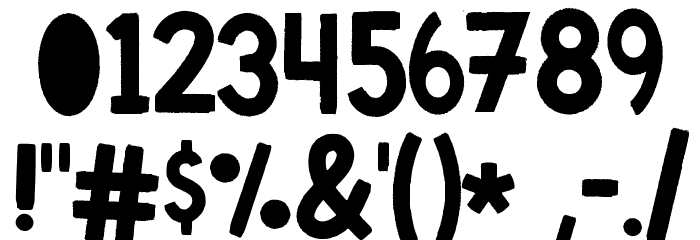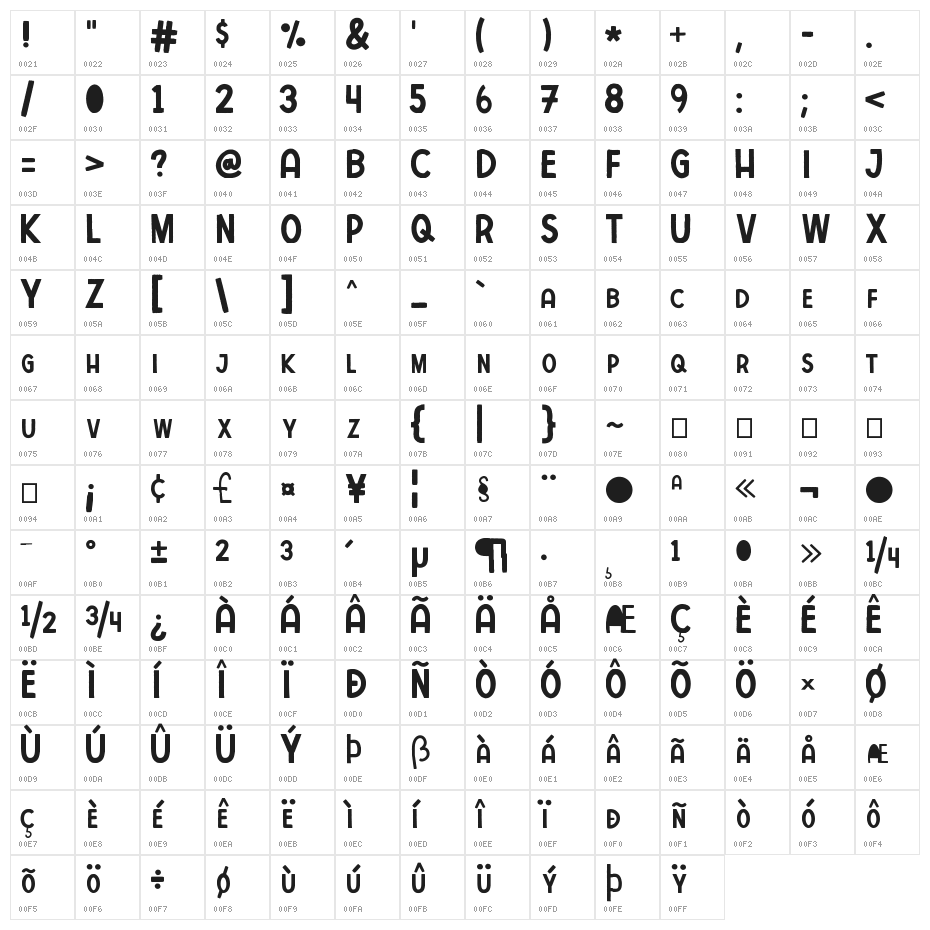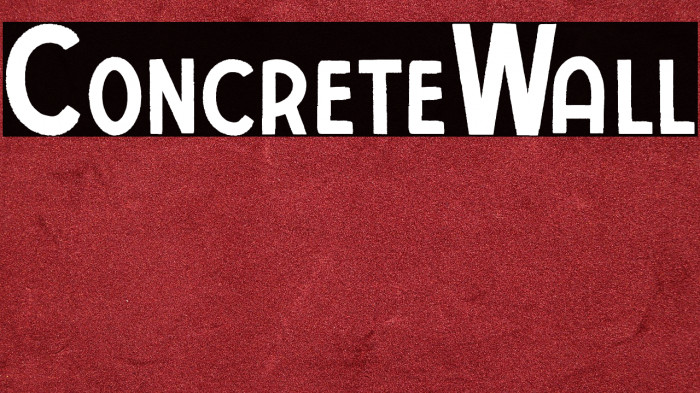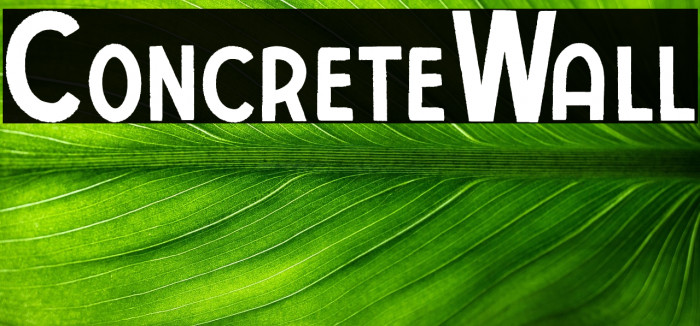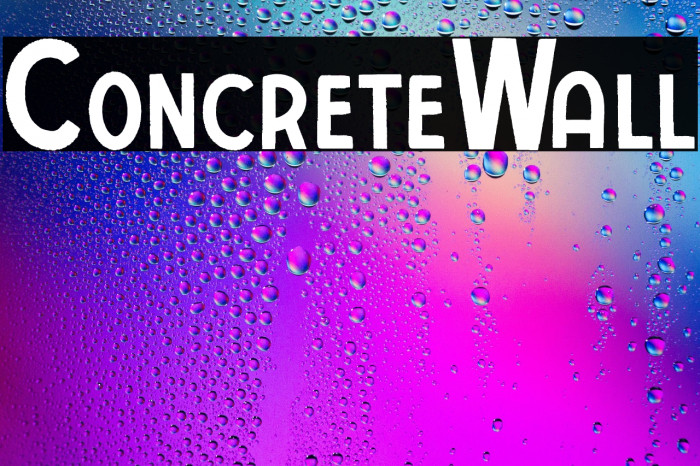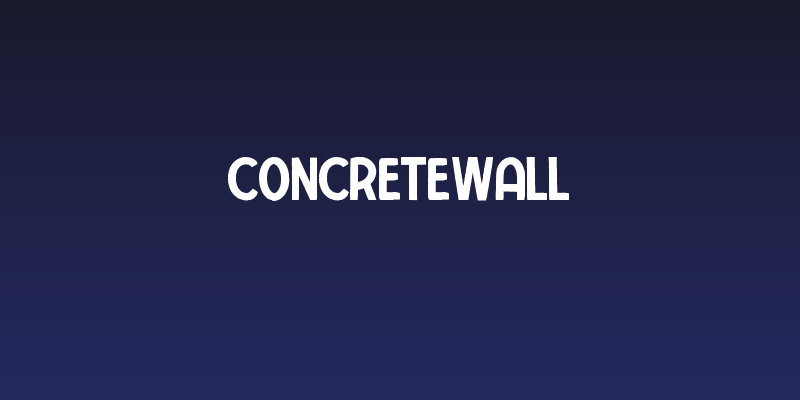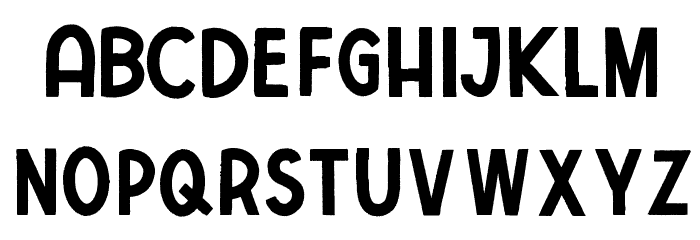
ConcreteWall Font
ConcreteWall Description
This font features bold, blocky characters with a slightly rough texture, giving it a hand-painted or stenciled appearance. The uppercase letters are uniform in height, with a consistent stroke width that conveys strength and stability. The lowercase letters maintain the same boldness, with rounded edges that soften the overall look. Numbers are equally bold, ensuring visibility and impact. Special characters are crafted with the same attention to detail, maintaining the font's cohesive style. The font's design is reminiscent of industrial or urban aesthetics, making it suitable for projects that require a strong, impactful visual presence.
| Overall Style | Industrial, Urban |
| Proposed Projects | Ideal for posters, signage, branding, and any project needing a bold, impactful typeface. |